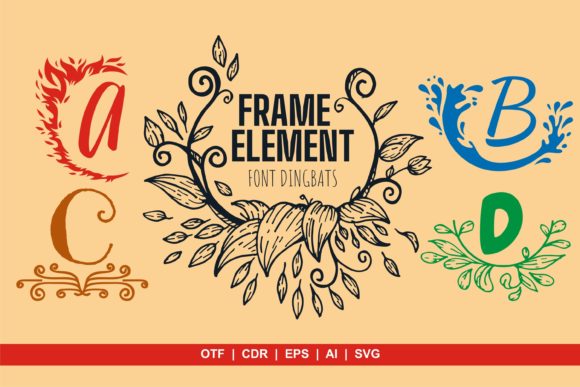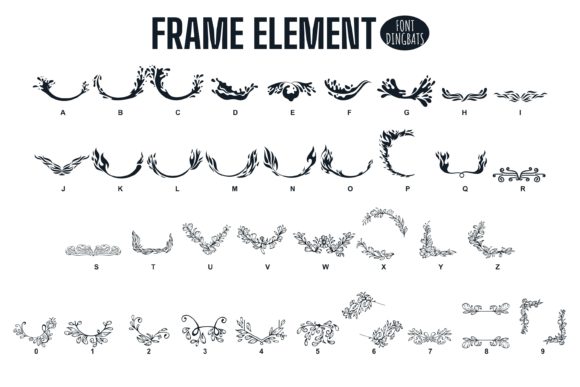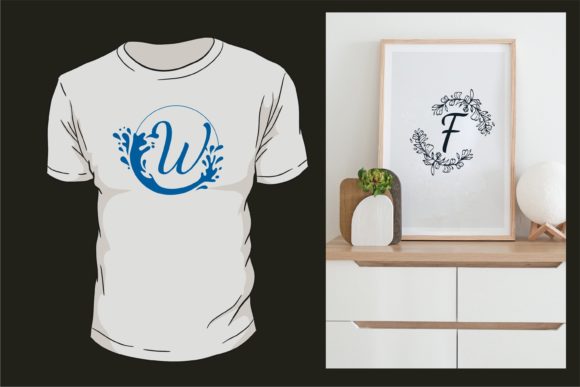
Frame Element Font
About Frame Element Font
“Frame Element” is indeed a delicate and unique dingbats font that can be a valuable asset in your font library. This font offers a wide range of beautifully designed frame elements that can enhance and elevate any creation, regardless of the topic.
The “Frame Element” font is carefully crafted with attention to detail, providing a variety of ornate frames and decorative elements. These elements can be used to frame text, images, or other design elements in your projects, adding a touch of elegance and sophistication.
With “Frame Element,” you have the flexibility to incorporate these delicate frames into various types of designs. Whether you’re working on invitations, certificates, posters, digital graphics, or any other creative project, this font provides a collection of frames that can instantly enhance the visual appeal of your design.
The frames in “Frame Element” are unique and eye-catching, offering a range of styles and intricacies. From simple borders to intricate patterns, there’s a frame to suit every design need. You can choose from rectangular frames, circular frames, floral frames, and more, allowing you to customize your design and create a composition that perfectly suits your vision.
Additionally, “Frame Element” can be particularly useful in creating visually appealing social media graphics. You can use the frames to highlight important text, create visual hierarchy, or add a decorative touch to your posts. These frame elements can also be used to create branded templates or cohesive visuals for your online presence.
Whether you’re designing wedding invitations, branding materials, or any other creative project, “Frame Element” provides you with a unique collection of frames that can instantly enhance the overall aesthetic. The delicate and intricate designs make this font stand out and add a touch of sophistication to your creations.
In conclusion, “Frame Element” is a delicate and unique dingbats font that can enhance any creation. Its collection of beautifully designed frames allows you to add a touch of elegance to your designs, making them visually appealing and captivating. Whether you’re working on invitations, posters, digital graphics, or social media visuals, “Frame Element” offers a wonderful range of frame elements to elevate your creations.